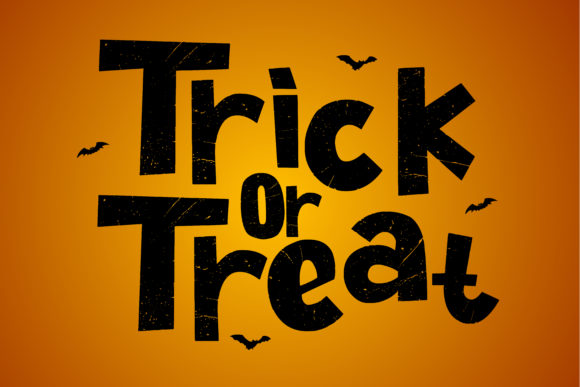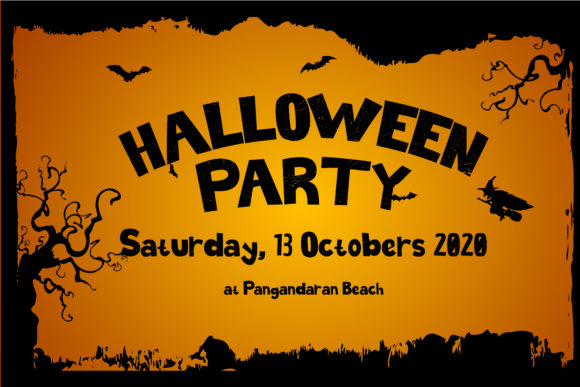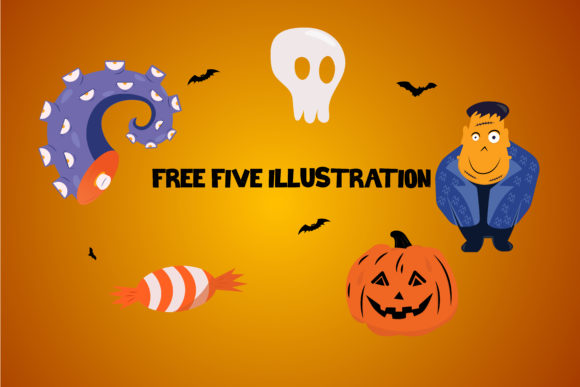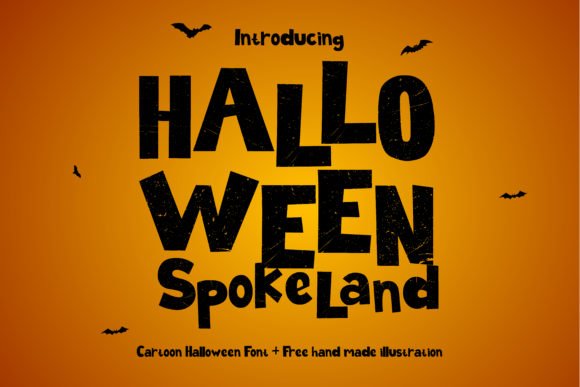
Introduction to Halloween Spokeland Font
Halloween Spokeland is a great display font.
It brings amazing illustrations that will add that a great touch to your crafting projects .